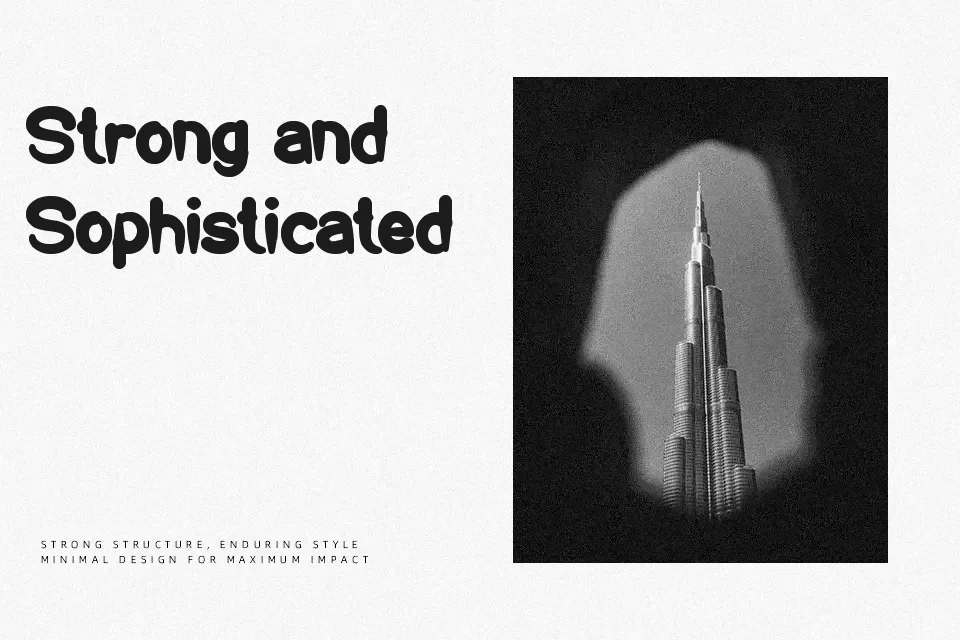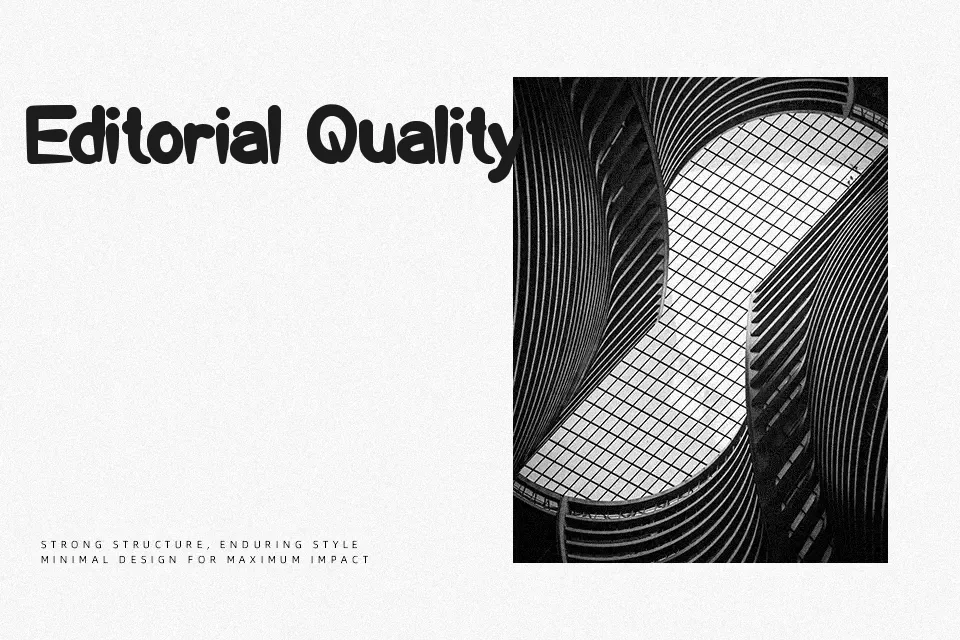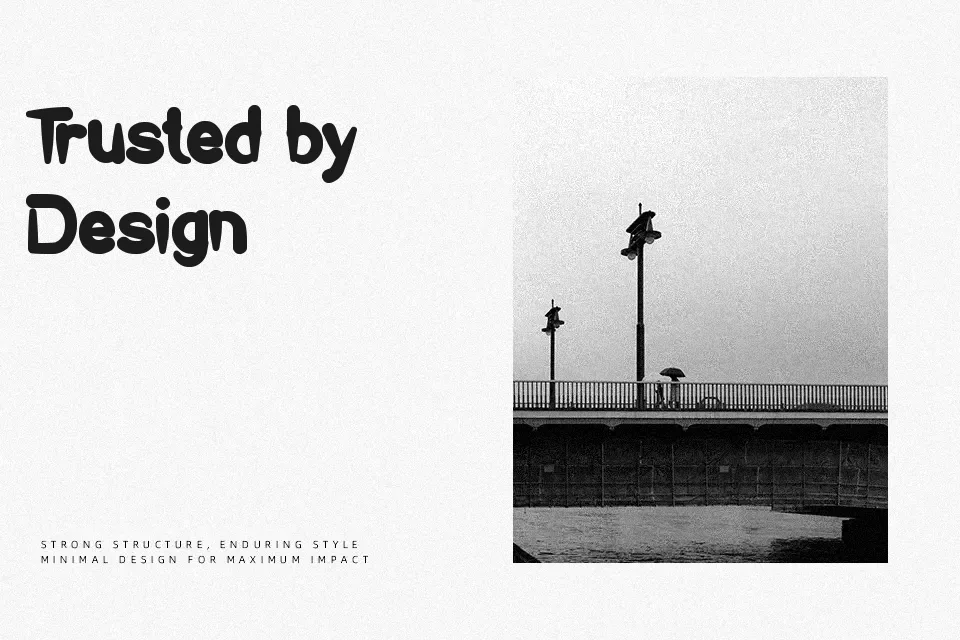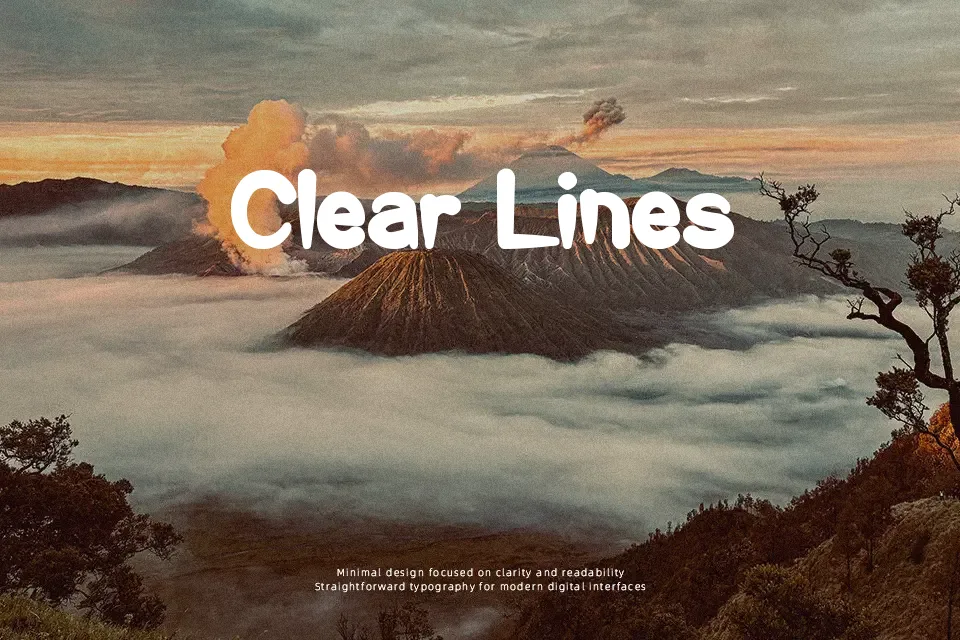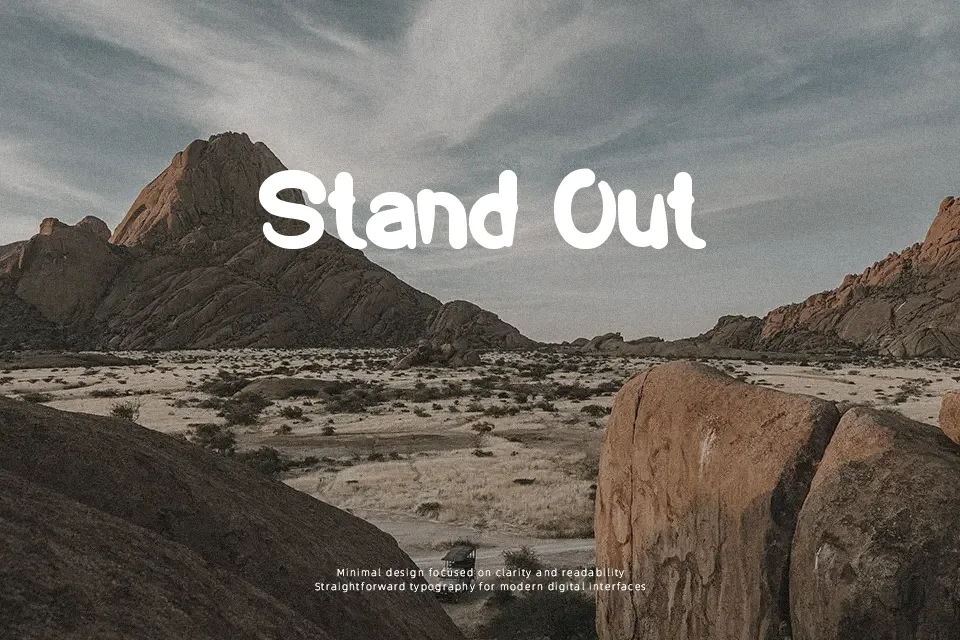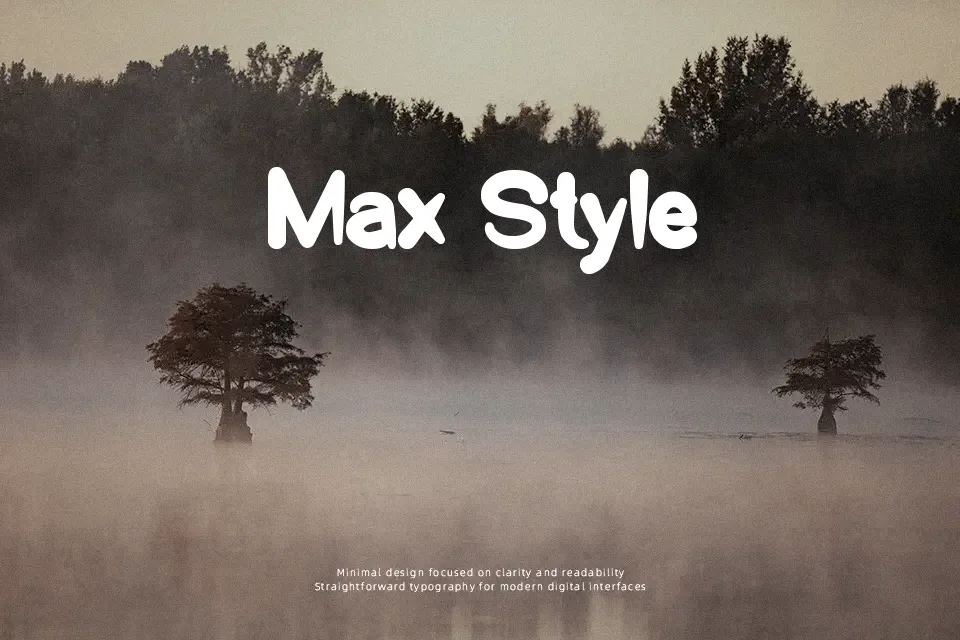
Take And Give Font
Designed by weknow
Take And Give Font delivers an unconventional display aesthetic defined by thick, uniform strokes and eclectic geometric contours. The design pairs heavy outer boundaries with open, quirky counters, establishing a rhythmic yet deliberately uneven character spacing across larger headlines. Balanced vertical proportions give each glyph a distinct silhouette, though the heavy visual weight prioritizes impact over continuous text flow. The letterforms remain easy to distinguish in short display text but quickly lose coherence in dense layouts. Consequently, extended body copy and micro typography significantly compromise overall reading comfort.
Best For: music festival posters,apparel graphics,skate deck illustrations,album cover titles
Not Ideal For: long paragraph text,corporate reports,small interface labels,technical manuals
Perfect for branding, headline, and music, with a artistic and decorative style.